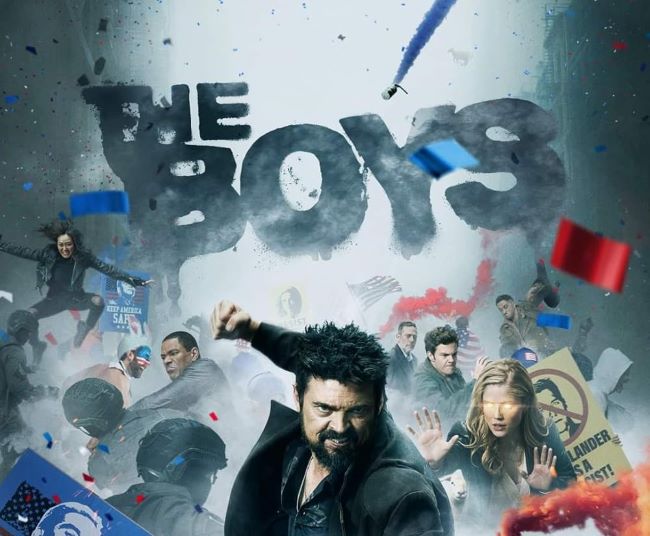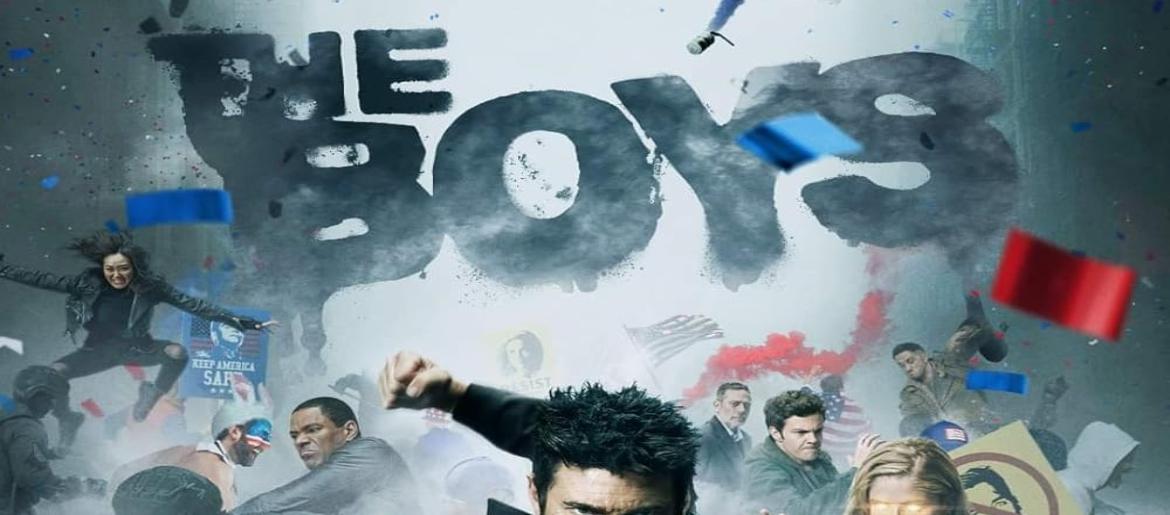
The Boys Font
The Boys Font delivers a bold, gritty punch that perfectly matches the show’s dark and rebellious personality. Its distressed, block-style lettering gives off an unpolished, chaotic vibe—echoing the series’ brutal world where corruption thrives and true justice is messy. This rough-edged design instantly sets the tone for fans, making it a striking choice for posters, edits, and bold graphic projects.
The typeface embodies rebellion and raw intensity, making it perfect for designs that need a powerful, edgy look. Its distressed texture reflects the show’s theme of exposing the dark side of heroism.
About The Boys
The Boys premiered in 2019 and quickly gained attention for its shocking, satirical twist on superhero culture. The series follows a group of vigilantes determined to reveal the truth about corrupt, ultra-powerful heroes. With its mix of action, dark humor, and fearless storytelling, The Boys has become one of the most talked-about and impactful shows of recent years.